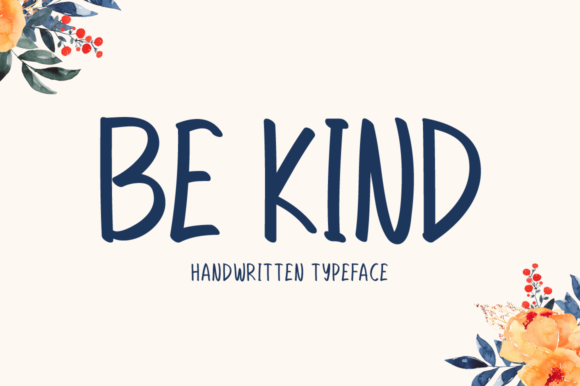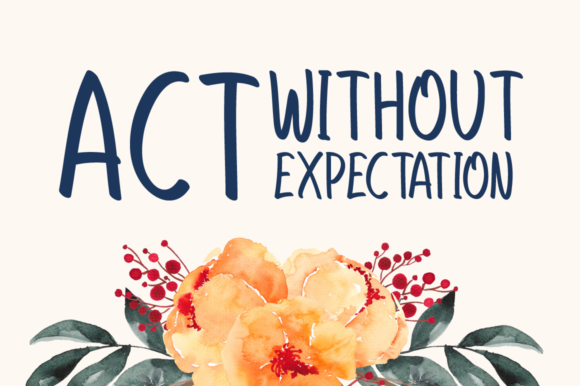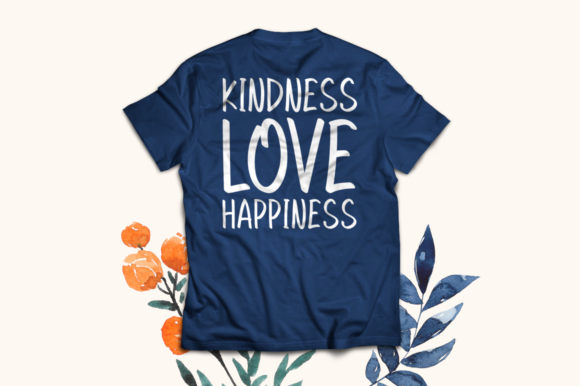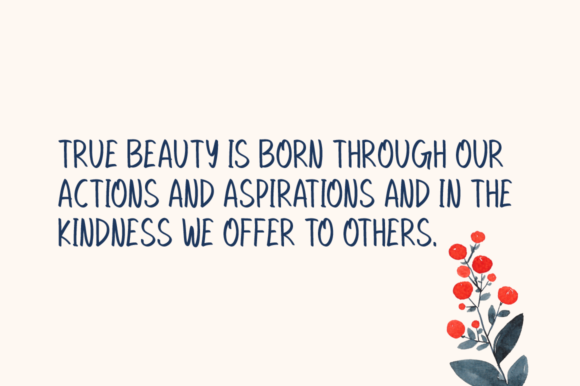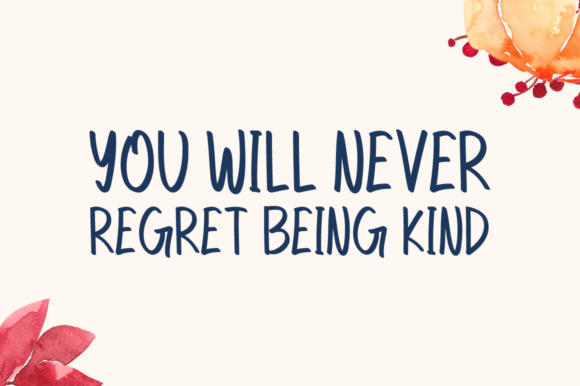
Be Kind Font
About Be Kind Font
Be Kind is a sweet and simple handwritten font. Its friendly feel makes this font incredibly versatile, fitting a wide range of contexts. Add it to your creative ideas and notice how it makes them stand out!